When it comes to design, the fonts you choose are like the clothes your words wear. Picking the right outfit helps your message stand out and be understood. But where to start? Here's your go-to guide that breaks down the types of fonts, how to make them play nice together, and how to arrange them in a way that makes sense to your readers. Let's jump in!
Classification of Typeface
Let’s identify the primary classifications of typefaces:
Serif
Serif typefaces feature small decorative lines or extensions called "serifs" at the ends of letters. The presence of these serifs is believed to guide the flow of reading, making it smoother.
This category of typeface is often associated with traditional, respectable, and established sentiments. Due to their readability in print, they're widely used in books, newspapers, and magazines.
Popular Examples: Times New Roman, Georgia, Garamond.
Serif Sans
The term 'sans' is derived from French, meaning 'without'. Hence, sans serif literally means "without serifs." These typefaces came into vogue during the 19th century and feature clean, straightforward lines without the small extensions at the end.
The minimalist nature of sans serif typefaces often imparts a modern, straightforward, and objective feel. They're commonly used in digital platforms, user interfaces, signage, and headers.
Popular Examples: Helvetica, Arial, Futura.
Slab Serif
A subtype of serifs, this style of typeface emerged during the 19th century and feature thick, block-like serifs. The serifs in these typefaces are unbracketed and tend to have the same thickness as the horizontal strokes of letters.
Slab serif fonts are bold and imposing, often used for headlines, advertisements, and posters to make a statement and grab attention.
Popular Examples: Rockwell, Clarendon, Courier.
Script
Script typefaces emulate handwriting and cursive scripts. These typefaces often have varying stroke widths and can mimic brush strokes or calligraphy.
Depending on their design, script typefaces can evoke a range of moods, from casual and playful to elegant and refined. They're typically used for invitations, logos, branding, and any context where a personal touch is desired. However, they can be challenging to read in long text or smaller sizes.
Popular Examples: Brush Script, Edwardian Script, Pacifico.
Here is an illustrated example of the types that represent the typefaces:
Decorative/Display
As the name suggests, decorative or display typefaces are crafted for specific, limited purposes. They are often distinctive, quirky, and deviate from the traditional letterforms, making them unique.
Given their expressive nature, these typefaces are best used sparingly. They shine in contexts where grabbing attention is crucial, such as logos, event posters, or book covers. Using them for extended body text can strain readability.
Popular Examples: Papyrus, Jokerman, Lobster.
Here is an illustrated example of the types that represent the typefaces:
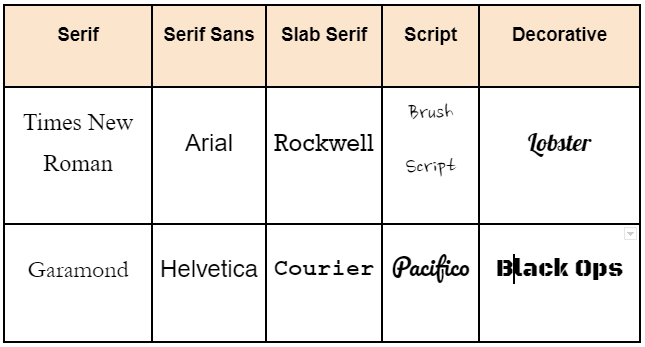
Typeface Pairing
Pairing typefaces can be a blend of art and science. The goal is harmonious communication. Here are some guidelines:
- Contrast is Key: Combining a serif typeface with a sans serif often creates a balanced contrast. For instance, Times New Roman (Serif) pairs well with Arial (Sans Serif).
- Stay Within the Family: Using different fonts from the same typeface (like Arial Regular and Arial Bold) ensures consistency and harmony.
- Avoid Overcrowding: Limit your design to two or three typefaces to avoid a chaotic appearance.
Typeface Hierarchy
When you open a book, browse a website, or even look at a poster, your eyes instinctively know where to go and what to read first. This seamless reading experience is not accidental; it's the result of thoughtful typeface hierarchy.
Understanding and effectively using typeface hierarchy will significantly improve the organization and impact of your design, ensuring not just visual appeal but also enhanced reader engagement.
Let's delve into how typeface hierarchy is structured and why each level is crucial.
Headings
The role of headings is to instantly catch the eye and give readers an idea of what the content is about. They are the gatekeepers that either draw people in or turn them away.
Given their high-visibility, headings often use bold or decorative typefaces that set the mood. Slab serifs with their sturdy, block-like features, or display typefaces with their unique flair, can be particularly effective here.
Tip: Choose a typeface that resonates with the content's tone. A business article may benefit from a strong, authoritative slab serif, while a creative blog could use something more whimsical.
Subheadings
Subheadings serve as content markers, breaking up large chunks of text to make it digestible. They provide a pathway, guiding the reader from one section to the next.